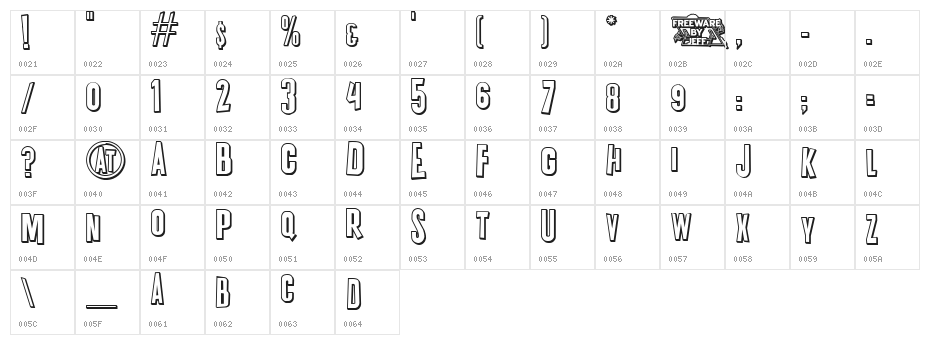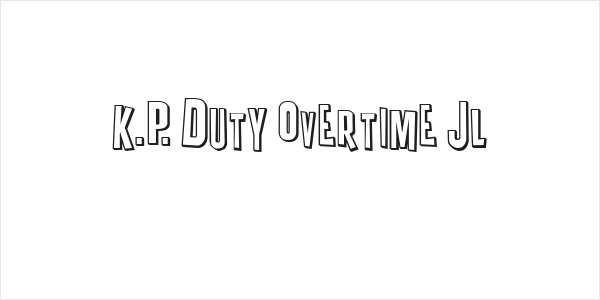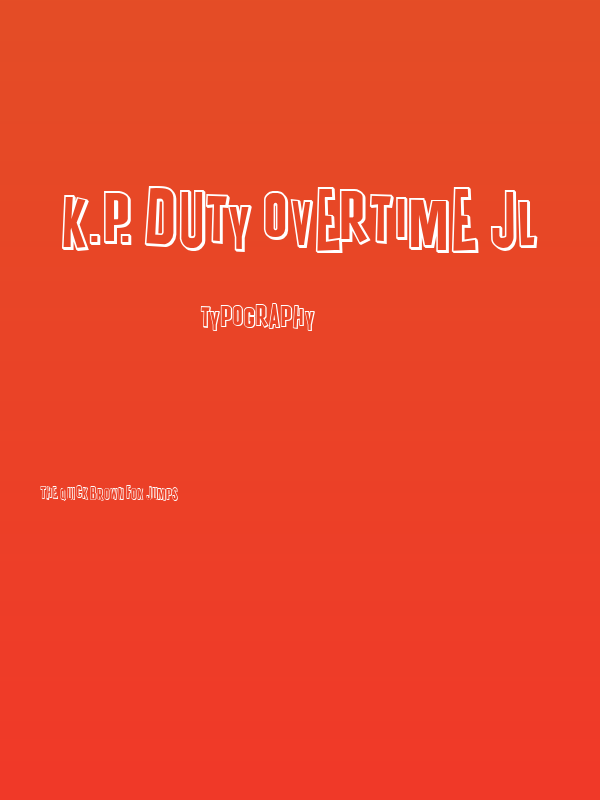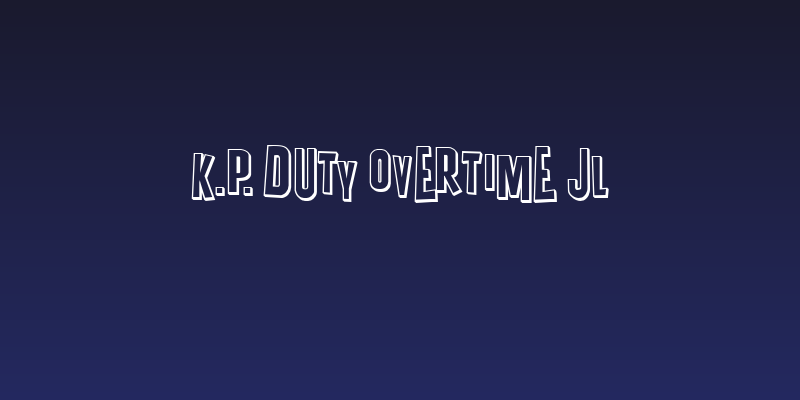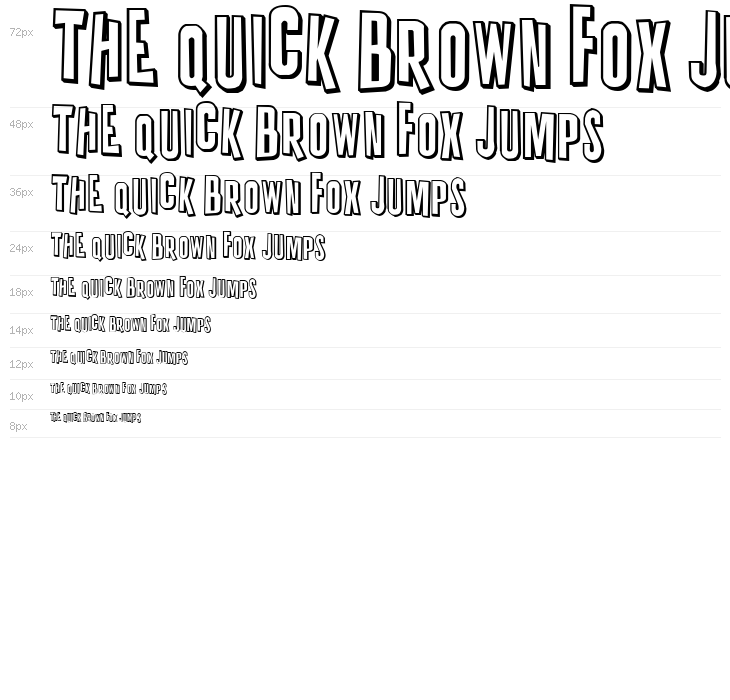
K.P. Duty Overtime JL Font
K.P. Duty Overtime JL Description
This font features bold, uppercase and lowercase letters with a strong, impactful presence. The characters are outlined, giving them a three-dimensional effect that enhances their visibility and makes them stand out. The design is clean and modern, with a geometric structure that maintains uniformity across all characters. The numbers and special characters follow the same style, ensuring consistency throughout. This font is ideal for projects that require a bold statement, such as headlines, posters, and branding materials. Its outlined style adds a unique touch, making it suitable for creative and artistic designs.
| Use Case | Headlines, Posters, Branding |
| Proposed Projects | Ideal for headlines, posters, branding, and creative designs. |